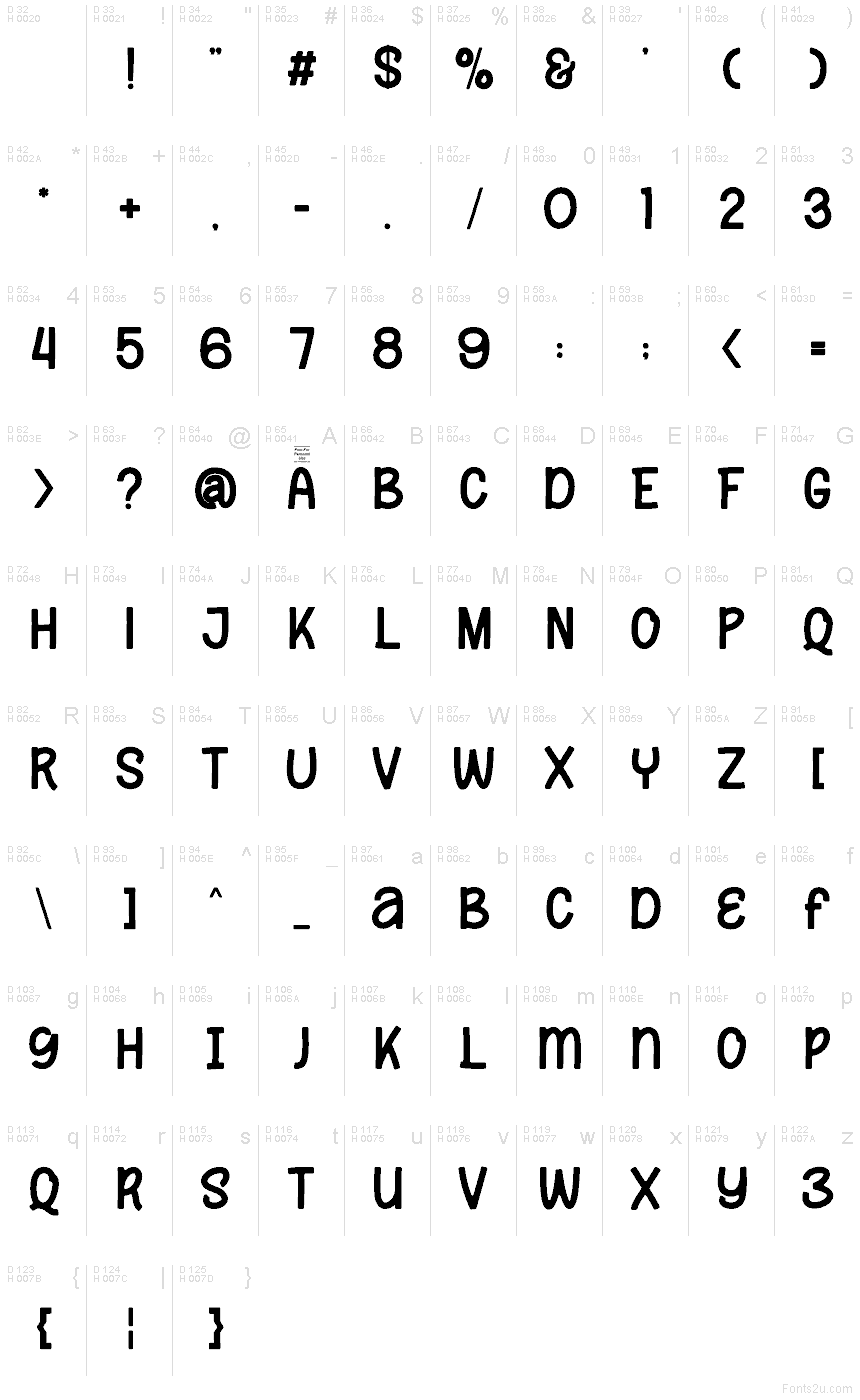
Godies Burger
Godies Burger font by Ermedia Studio is a free handwritten font that solves a familiar brief: friendly, high-impact lettering that still reads clearly at a glance. Its inky strokes feel soft and rounded, like marker lines swelling on paper, while the steady rhythm keeps words from wobbling. The result is warm and approachable without slipping into chaos—bold enough for a sign, breezy enough for a label.
Using Godies Burger, headlines pop on food truck logos, menu boards, kids’ snack packaging, café signage, festival posters, and playful sticker merch. The open shapes hold up at distance and on small screens, so this free font shines online and IRL. Pair it with a clean, light-weight sans to handle details, and set Godies Burger big to let the juicy curves do the talking.